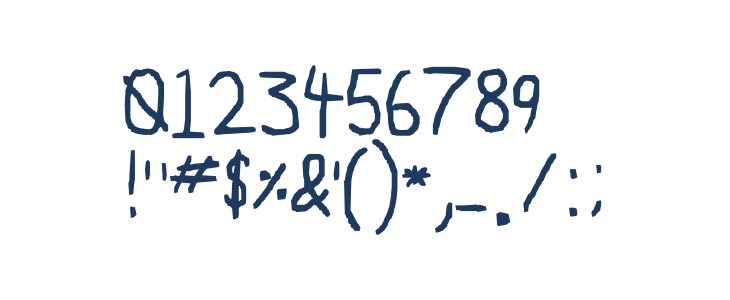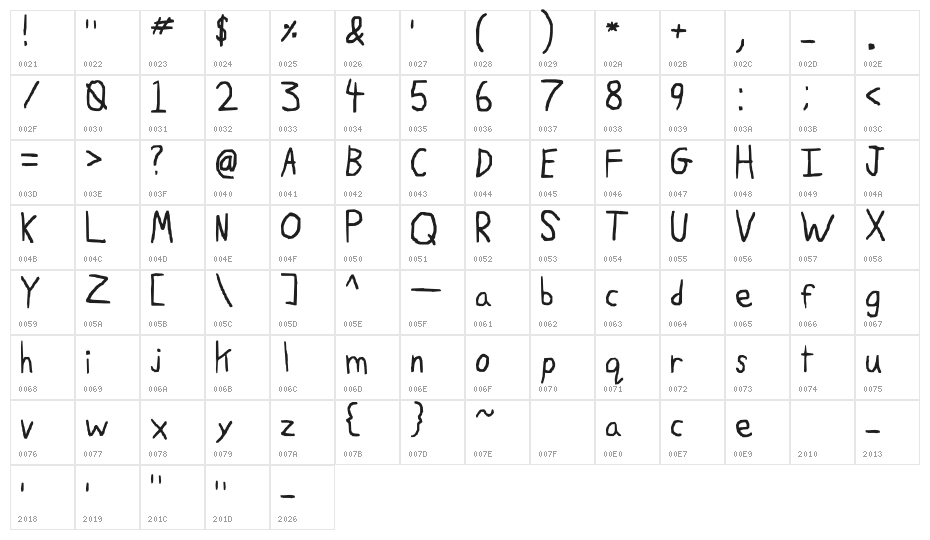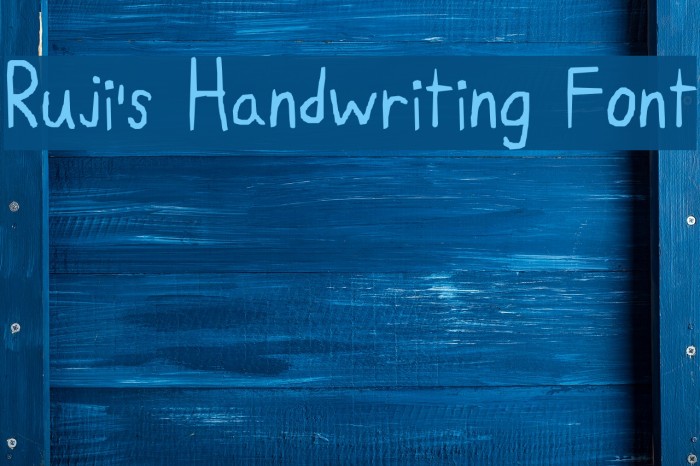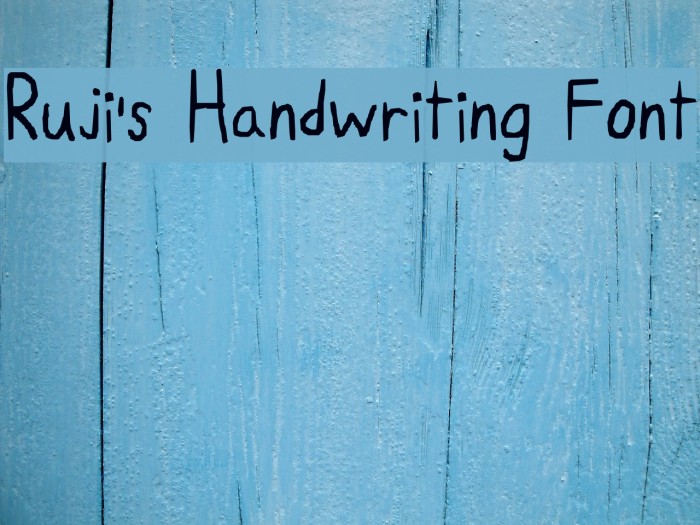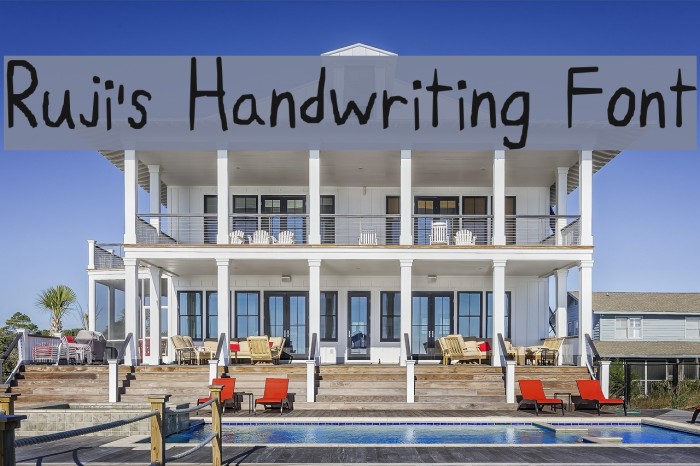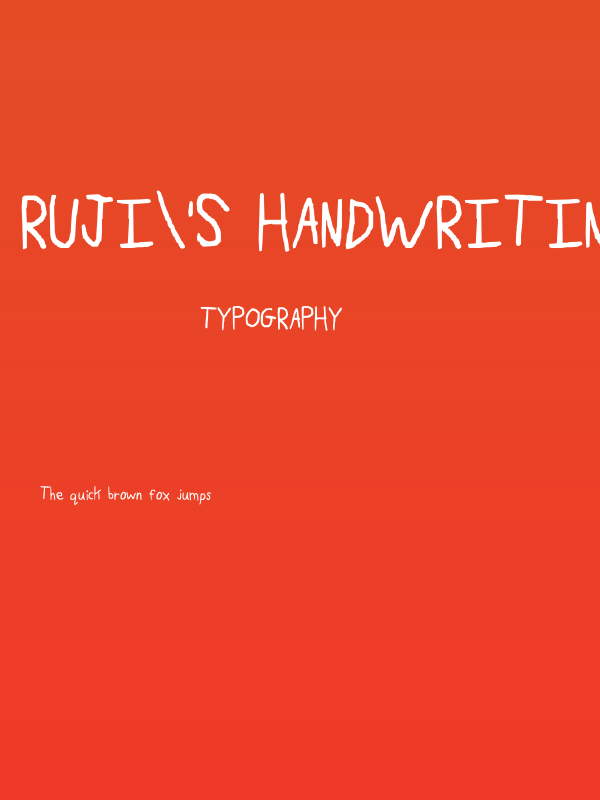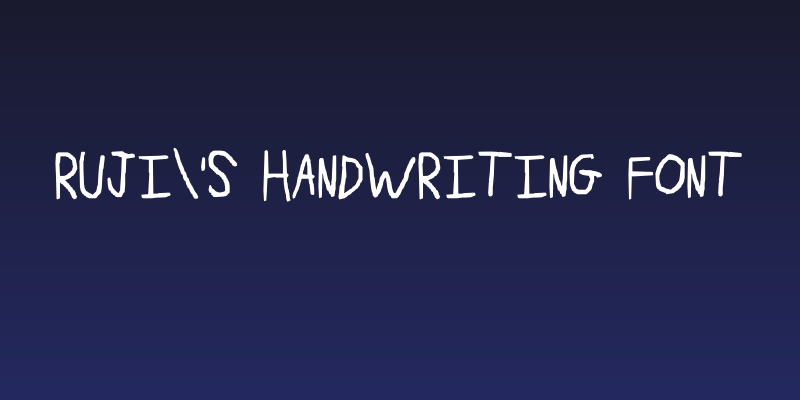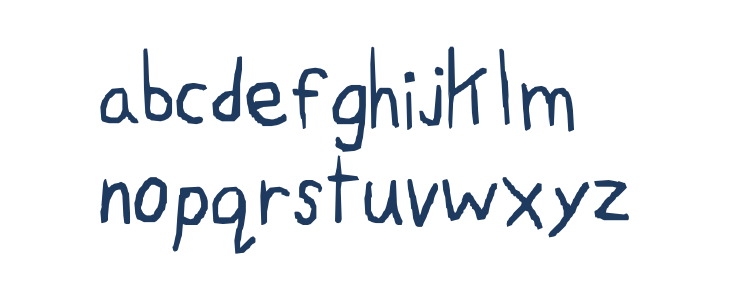
Ruji's Handwriting Font Font
Ruji's Handwriting Font Description
This font exudes a casual, hand-drawn aesthetic, reminiscent of natural handwriting. The characters are slightly irregular, giving it a personal and approachable feel. The uppercase and lowercase letters maintain a consistent style, with rounded edges and a playful, informal appearance. Numbers and special characters follow the same handwritten style, ensuring uniformity across all glyphs. The strokes are moderately thick, providing good readability while maintaining the font's casual charm. This font is ideal for projects that require a personal touch or a relaxed, friendly vibe.
| Use Case | Headlines, Informal text, Personal projects |
| Proposed Projects | Perfect for greeting cards, personal notes, children's books, and casual branding projects. |